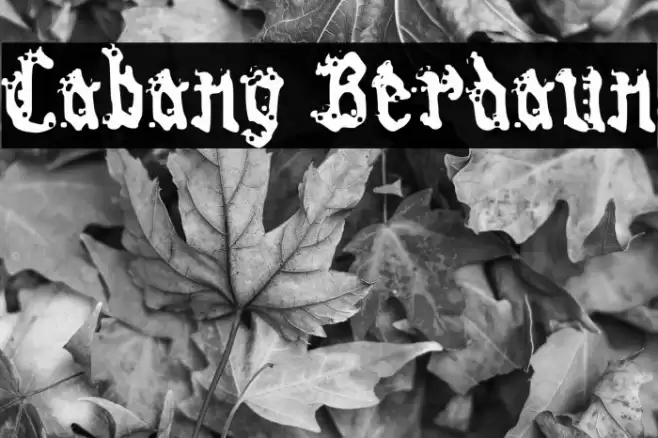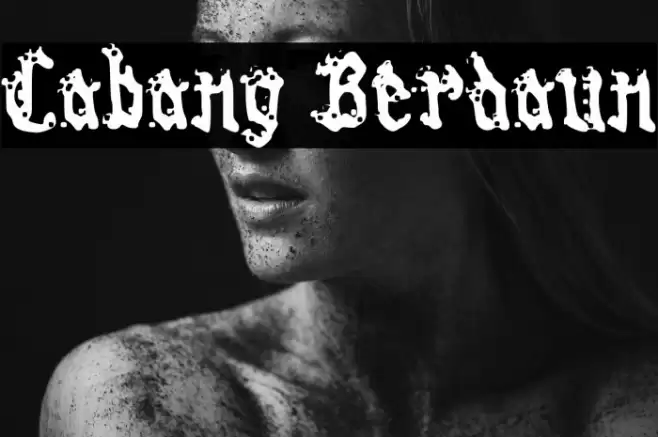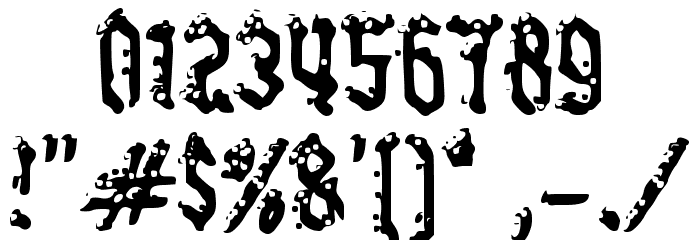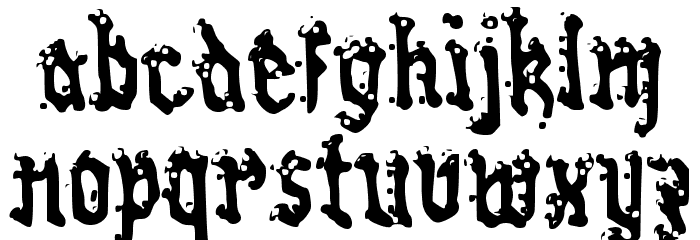
Cabang Berdaun Font
Cabang Berdaun Description
This font features an intricate design with a gothic and organic appearance, reminiscent of branches or vines intertwining through each character. The letters are bold and have a decorative style, with unique embellishments that give them a slightly chaotic yet artistic look. The uppercase and lowercase letters maintain a consistent style, with numerals and special characters following the same theme. The font's distinctiveness makes it stand out, suitable for projects that require a dramatic and eye-catching typeface.
A bold, decorative font with a gothic, organic design from Uncategorized fonts.
- Proposed Projects: Ideal for Halloween-themed designs, fantasy book covers, gothic posters, or any project needing a dramatic and artistic touch.
- Overall Style: Gothic, Decorative
- Use Case: Headlines, Posters, Logos